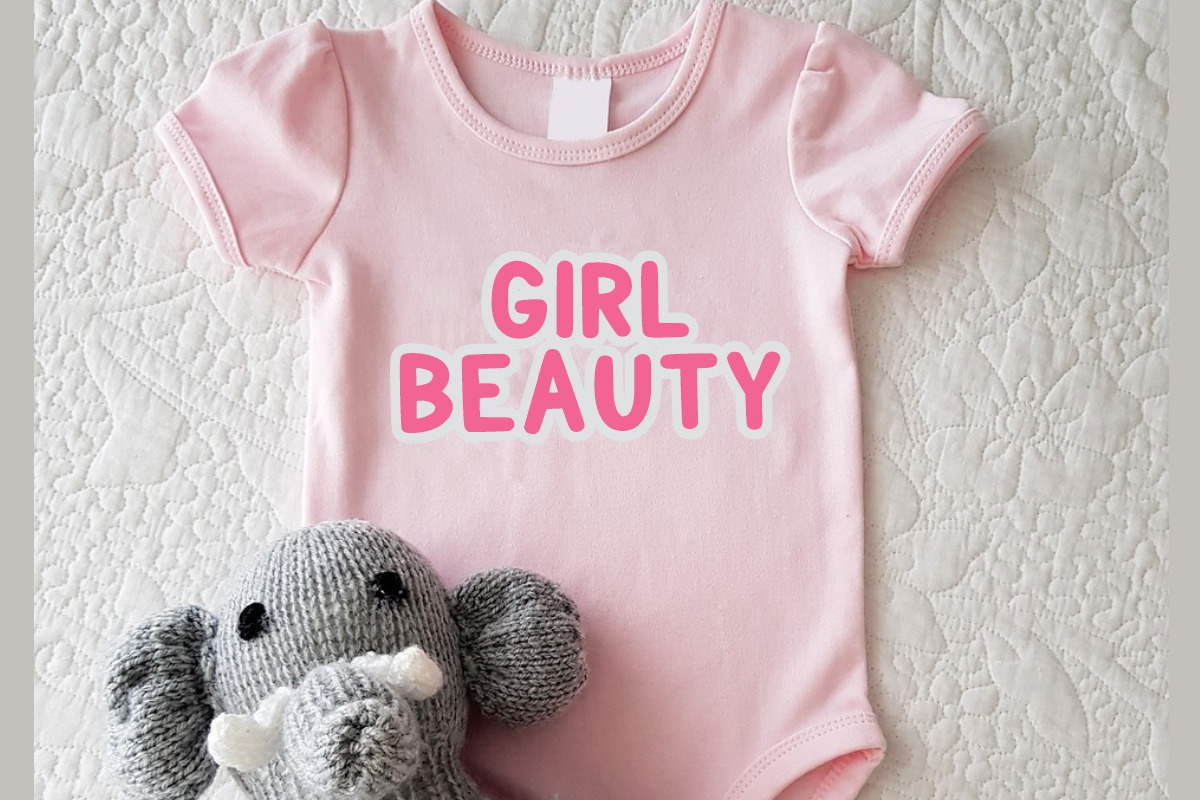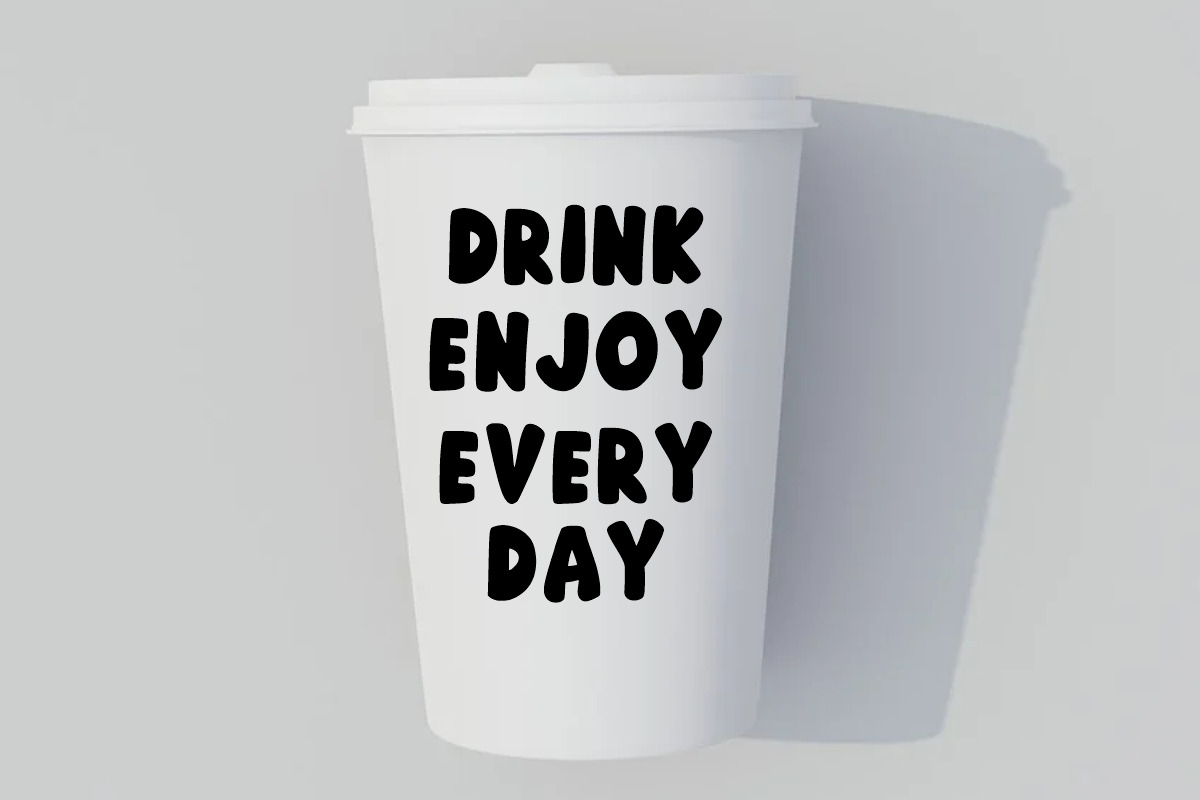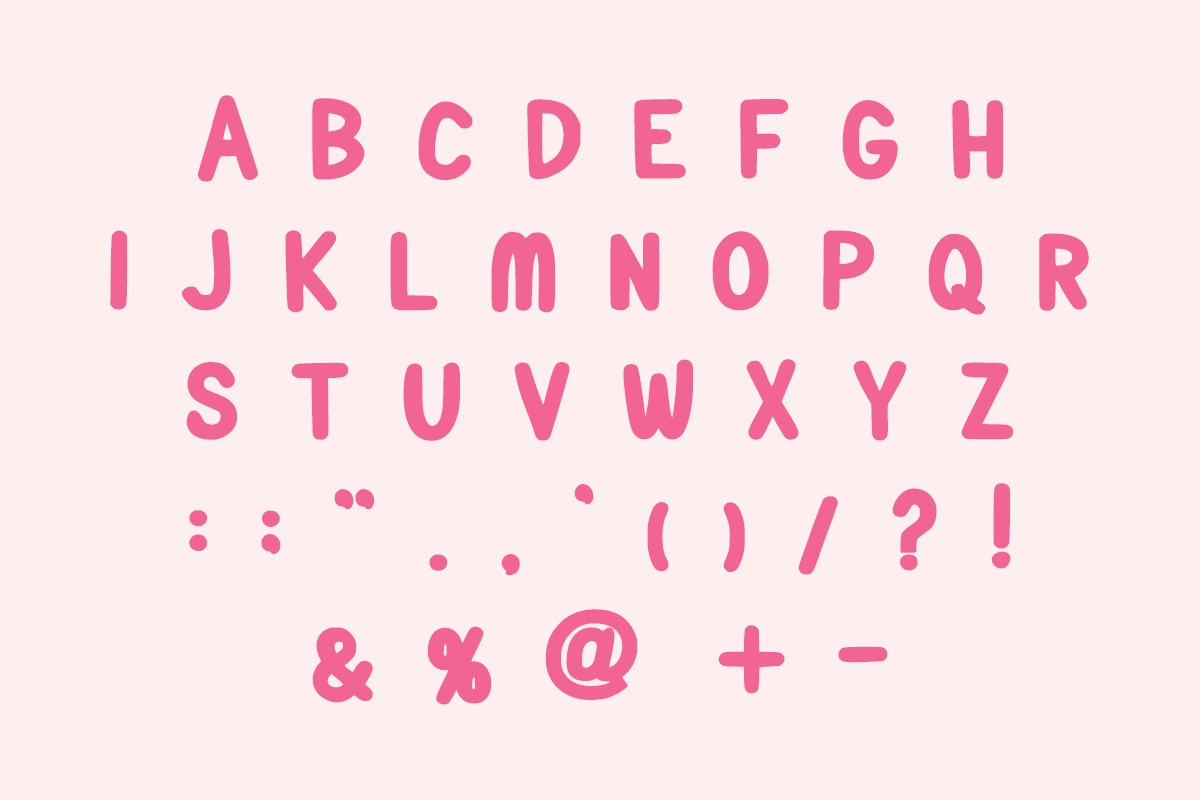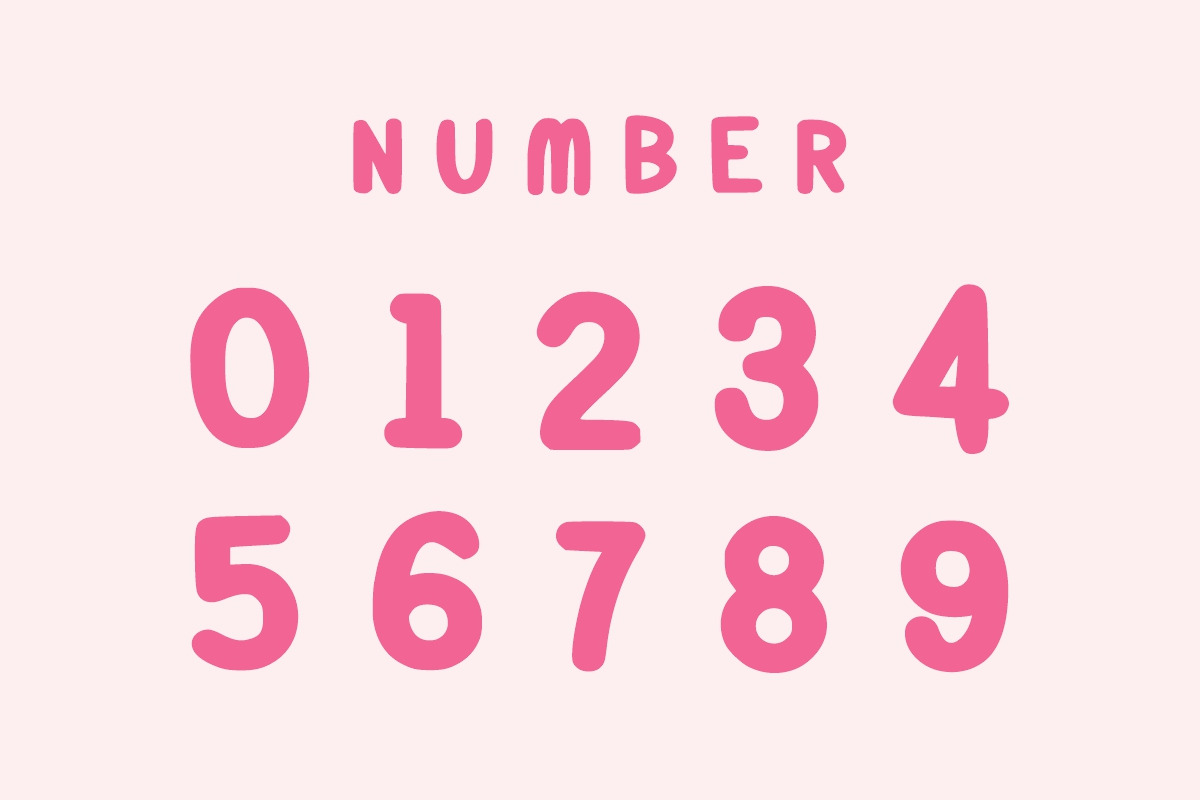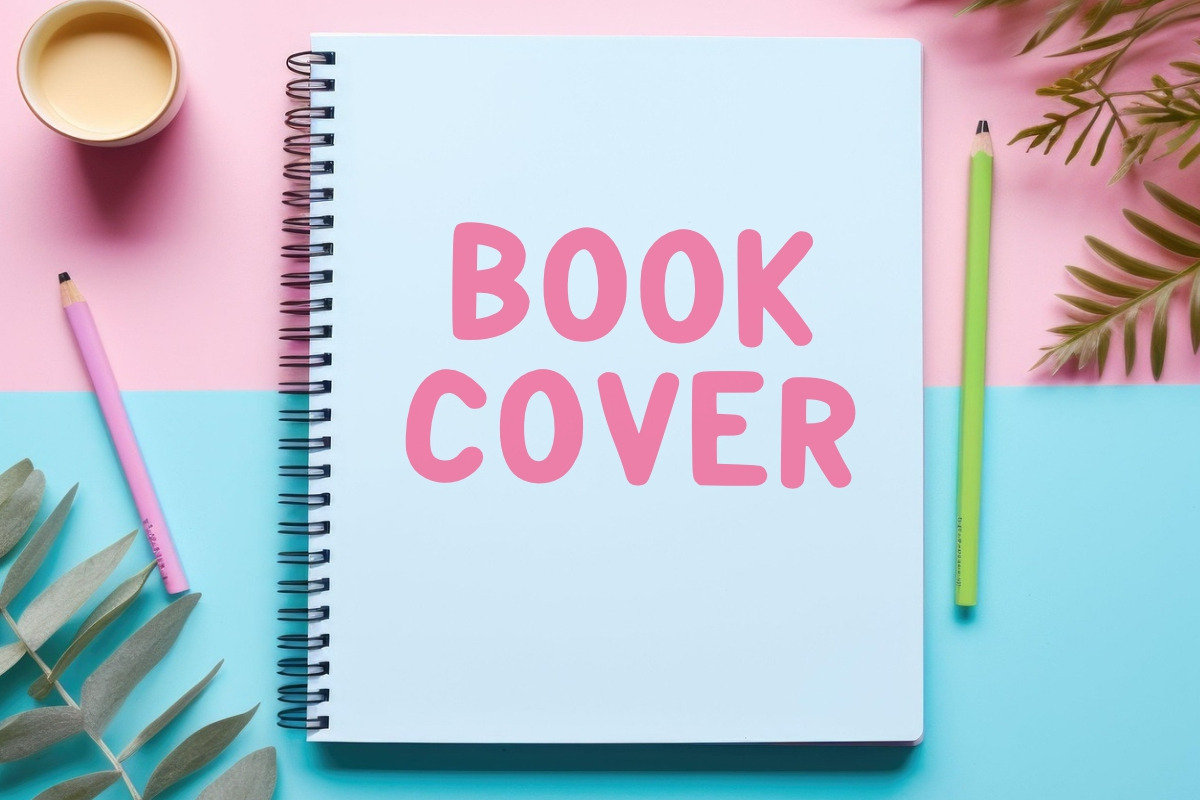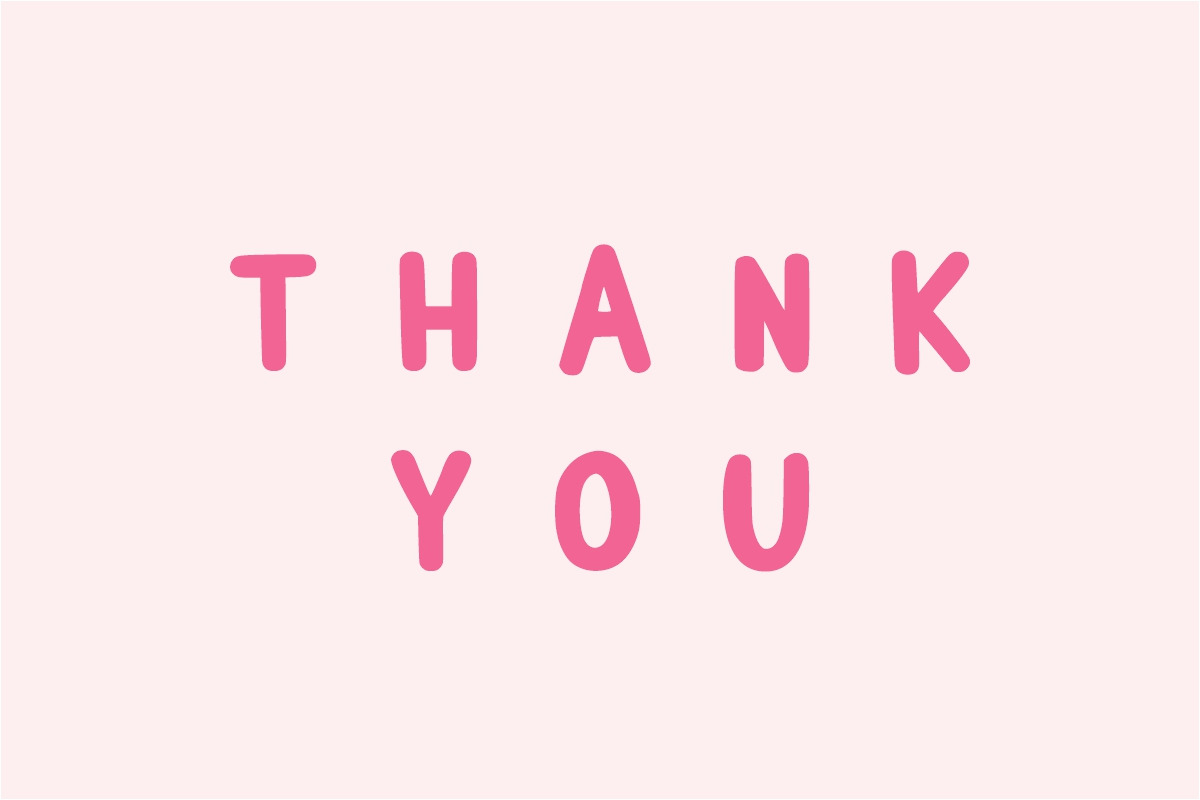
Pinky Candy
Pinky Candy is a doodle and cute bold display font that exudes playfulness! Its soft curves and bold appearance are perfect for creating eye-catching headlines, posters, social media graphics, and branding. Add a dreamy touch to your designs with this delightful font that’s both fun and versatile.